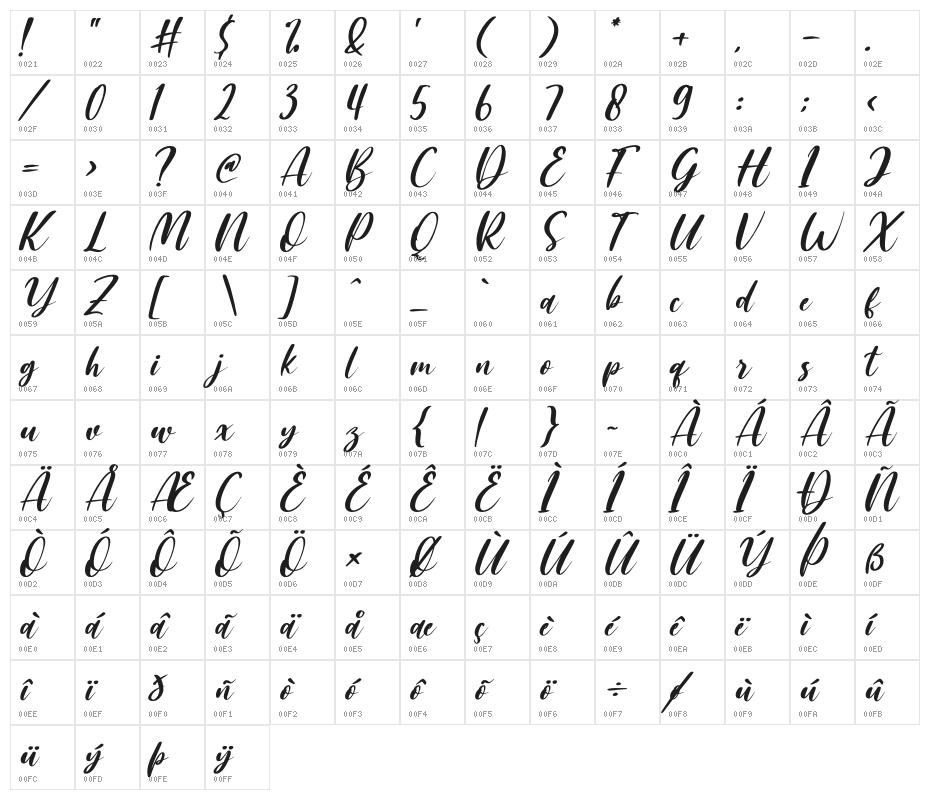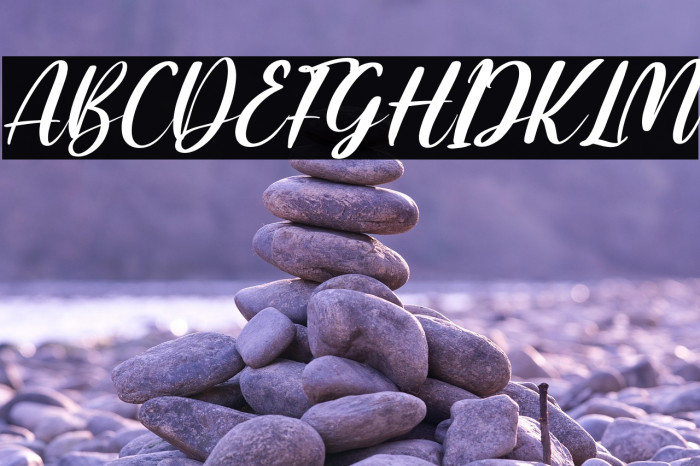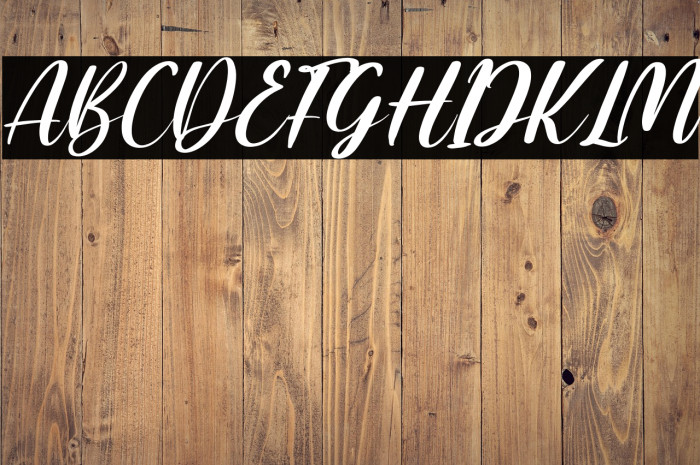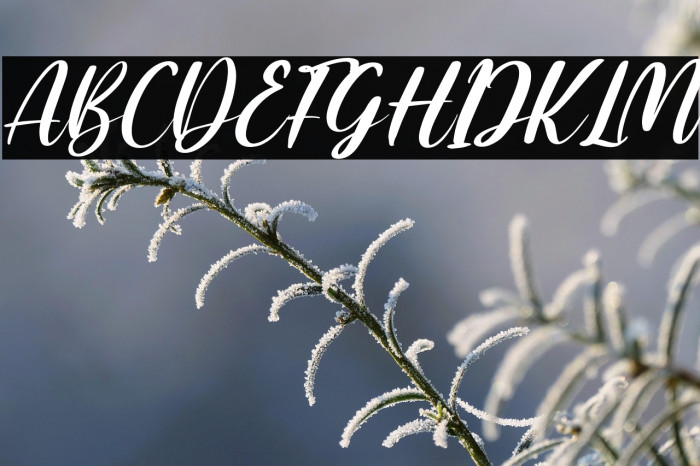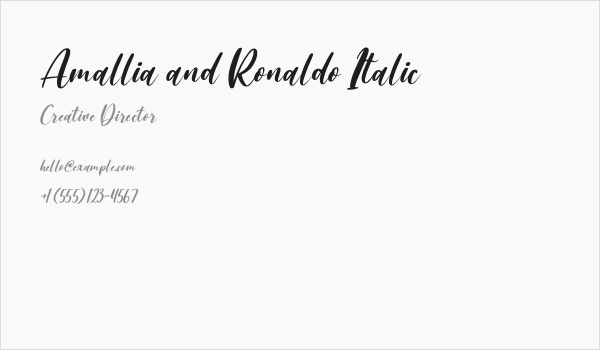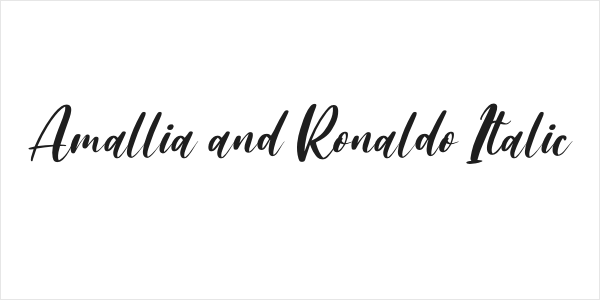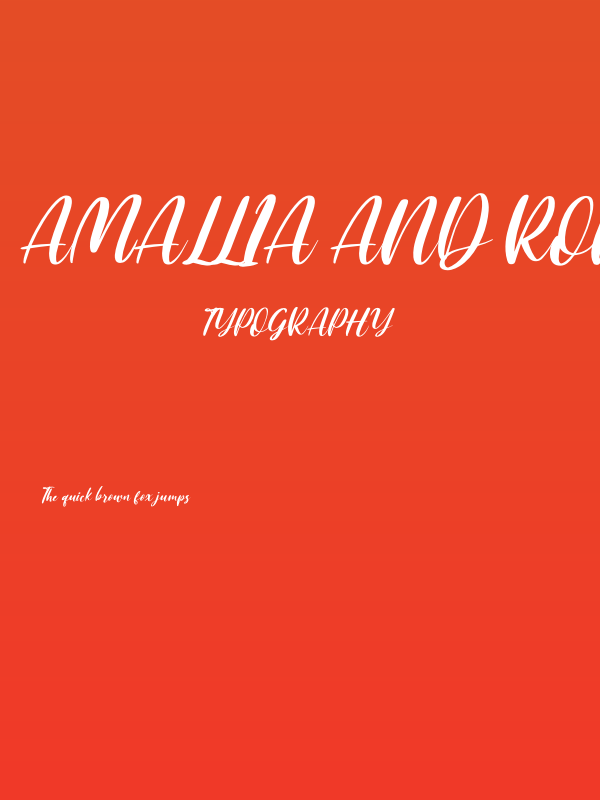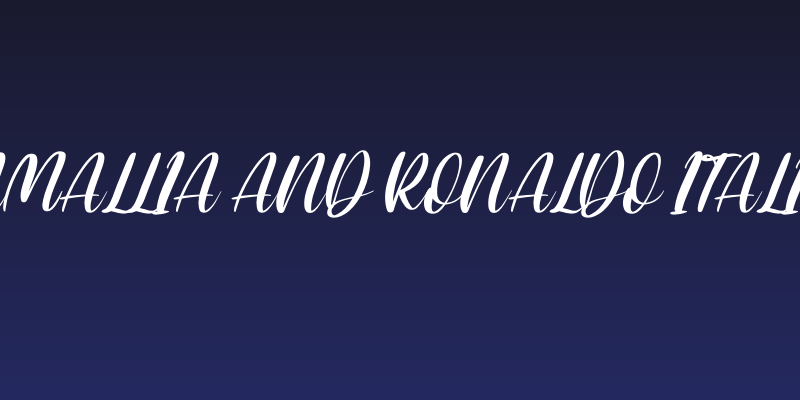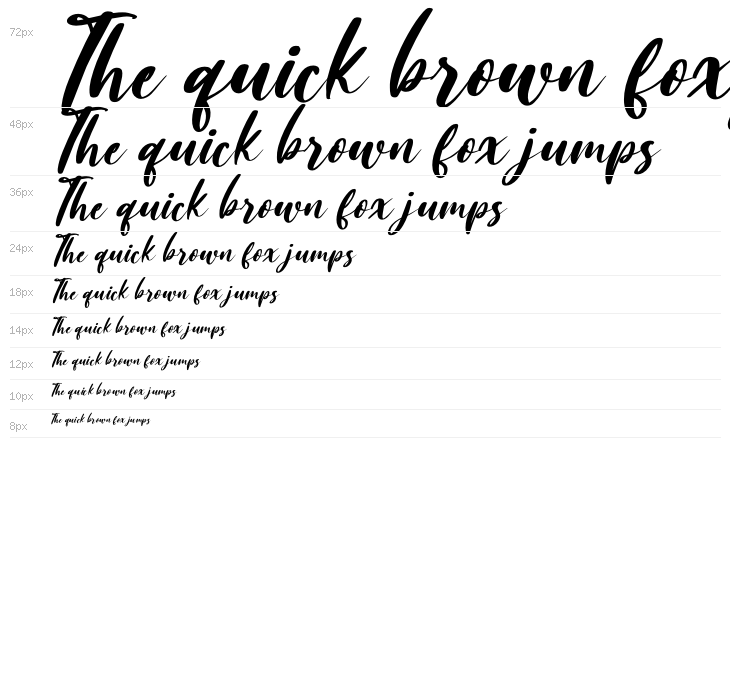
Amallia and Ronaldo Italic Font
Amallia and Ronaldo Italic Description
This font features a dynamic and flowing script style with a pronounced italic slant, giving it an elegant and sophisticated appearance. The characters are connected in a cursive manner, enhancing the fluidity and grace of the text. The uppercase letters are bold and prominent, while the lowercase letters maintain a consistent flow, making it ideal for creating a harmonious and stylish look. The numerals and special characters are designed to match the overall aesthetic, ensuring uniformity across all text elements. The font's design is both modern and timeless, making it suitable for a variety of applications.
| Overall Style | Elegant, Modern |
| Proposed Projects | Ideal for wedding invitations, branding, logo design, and elegant stationery. |